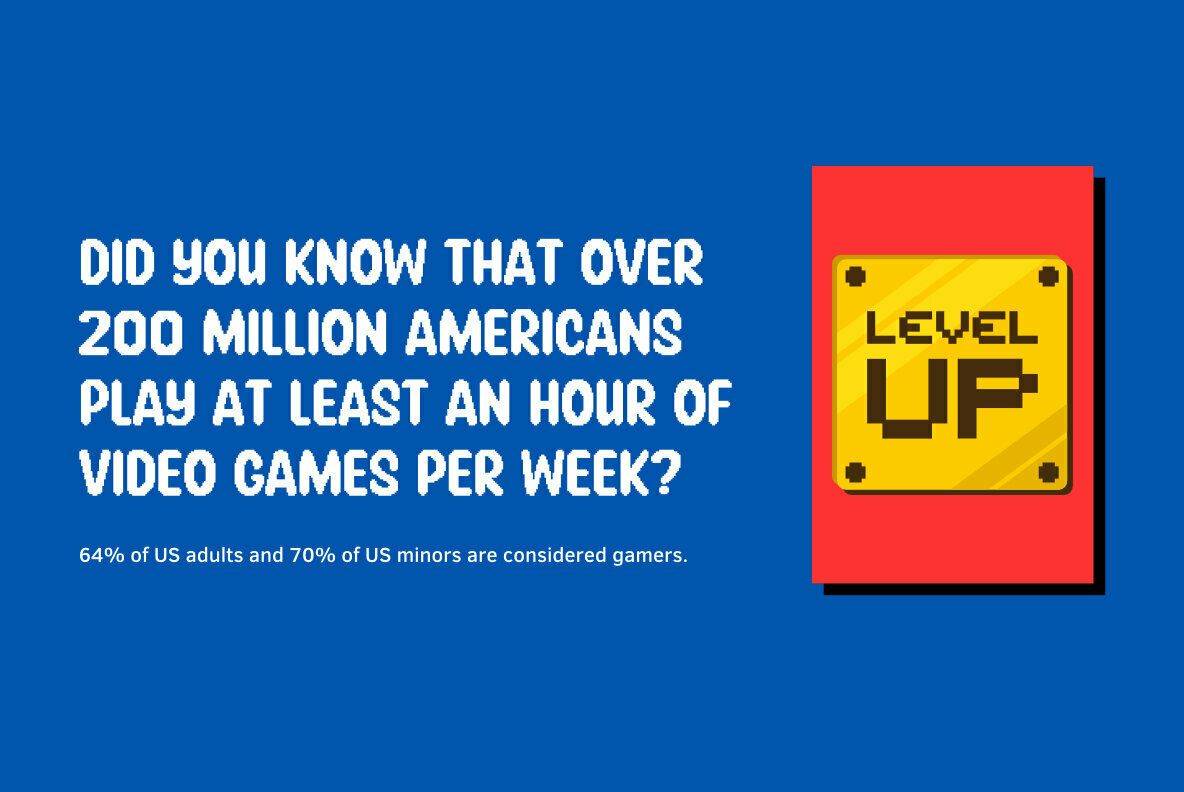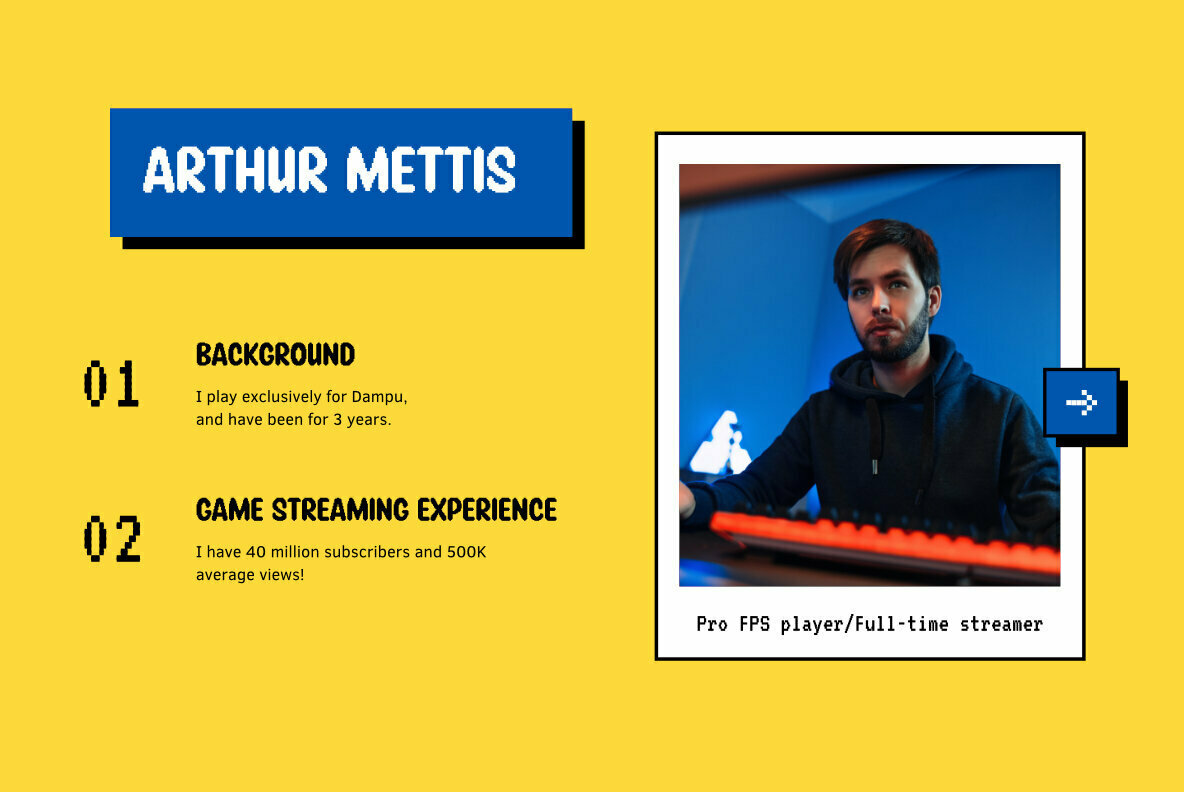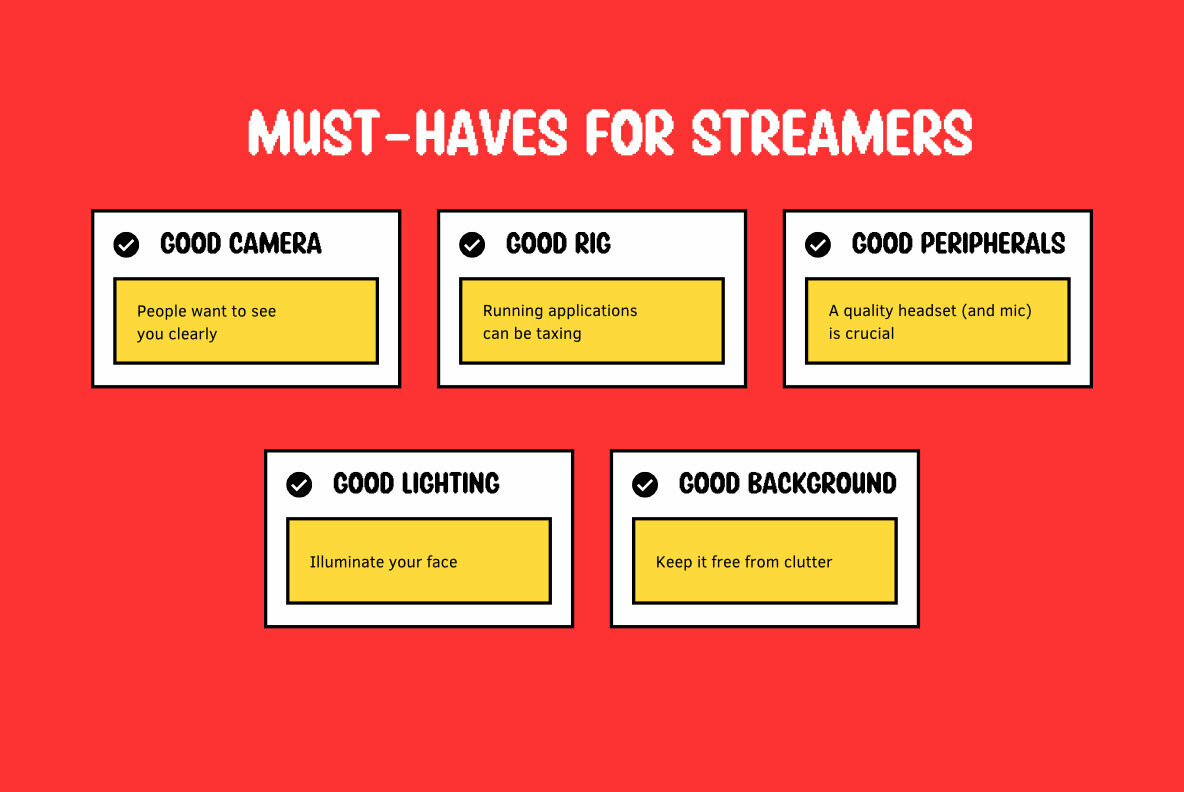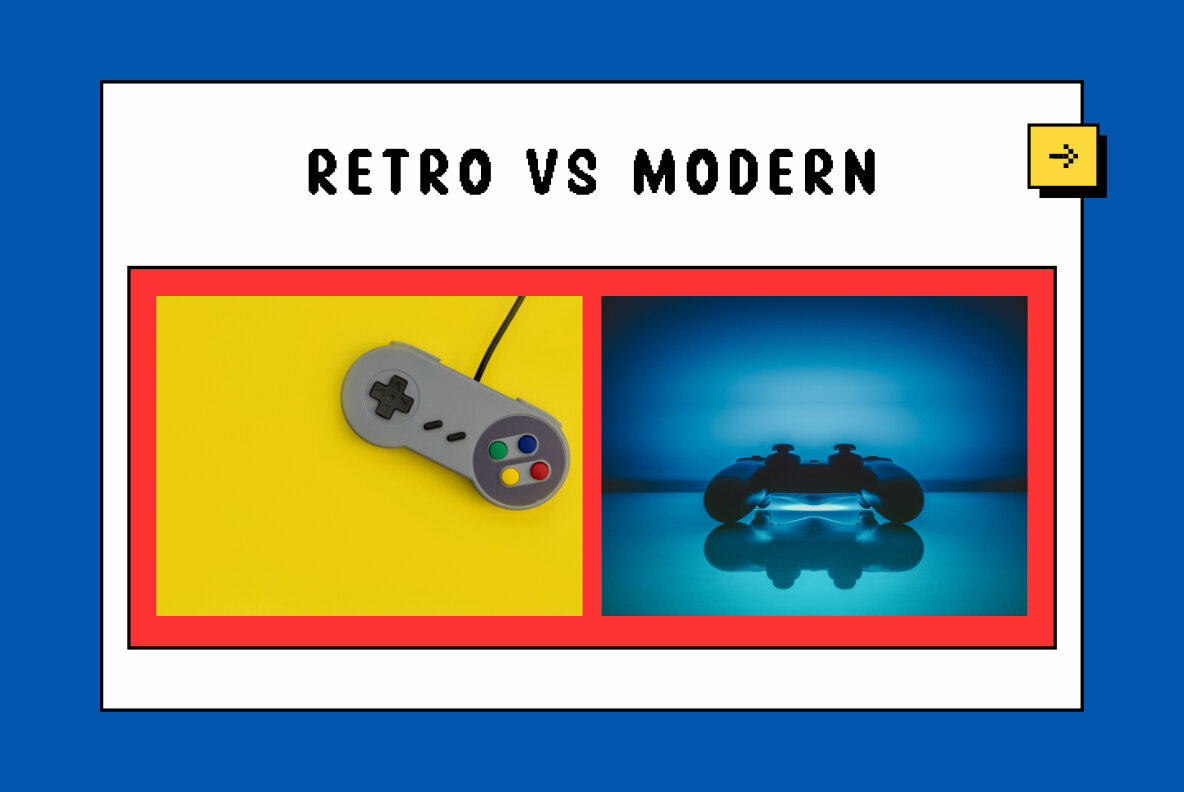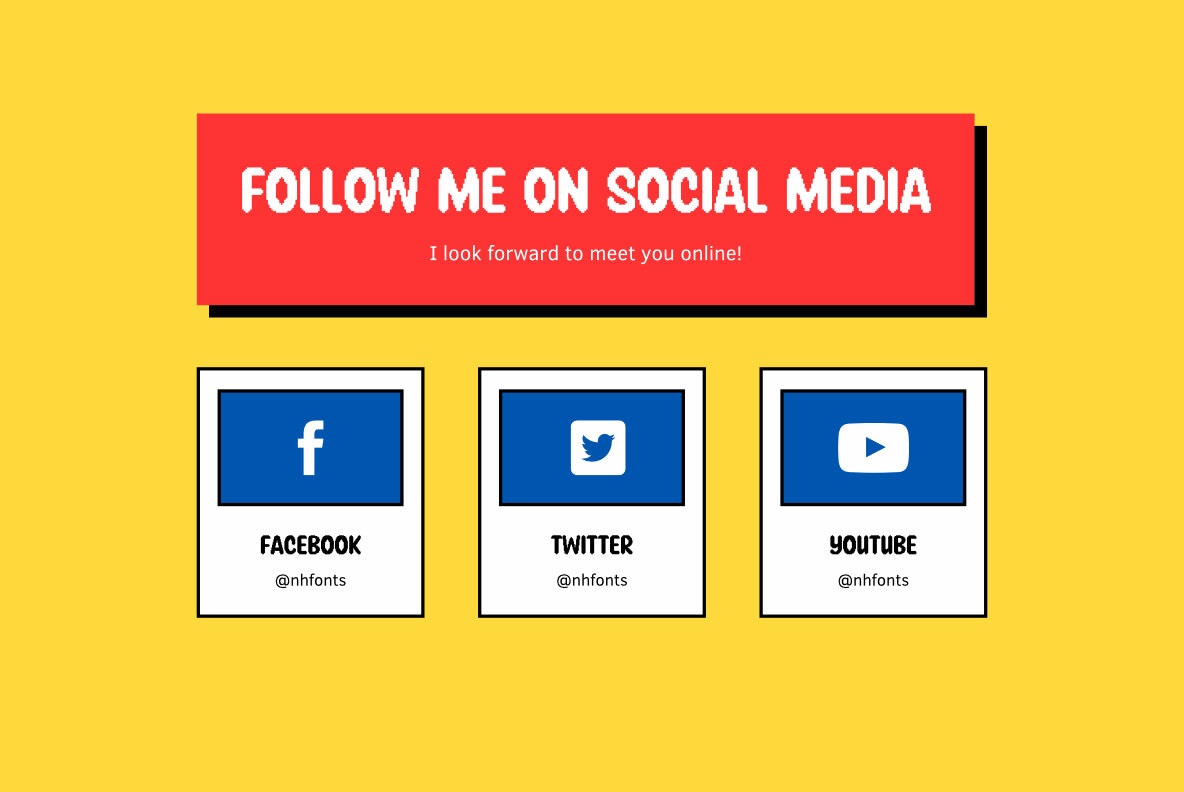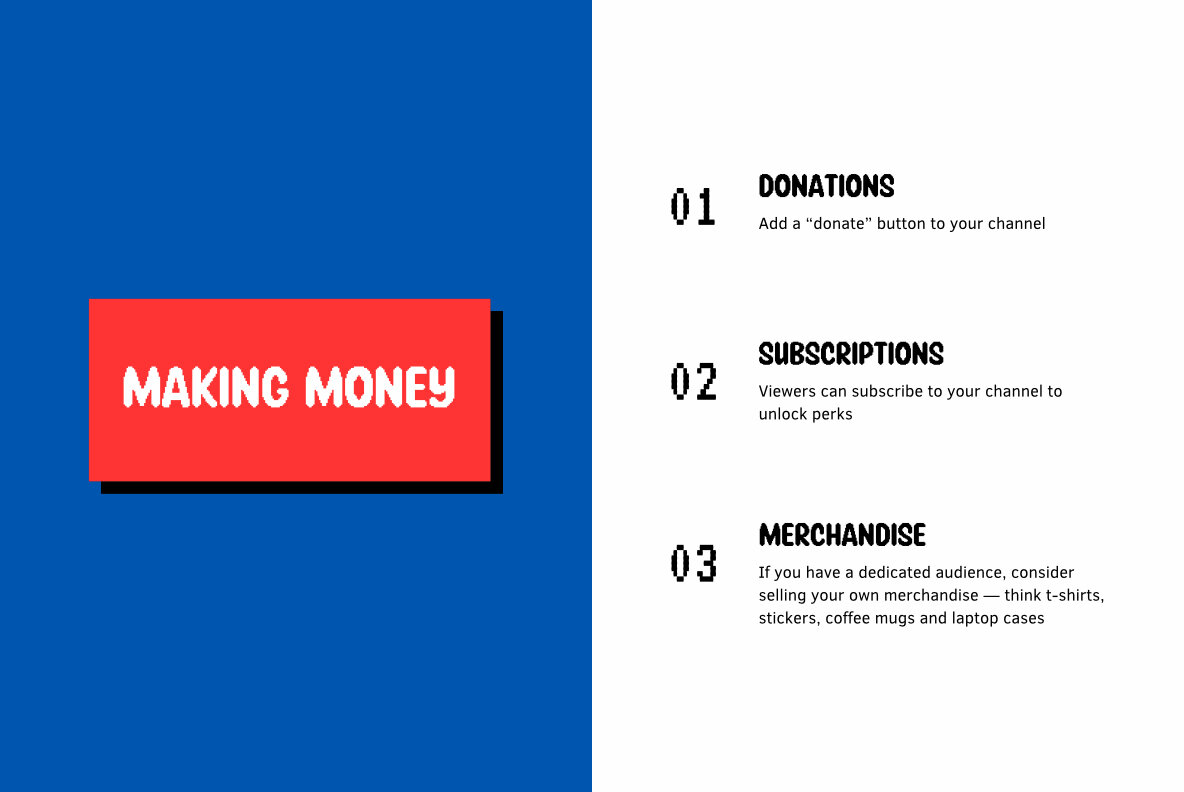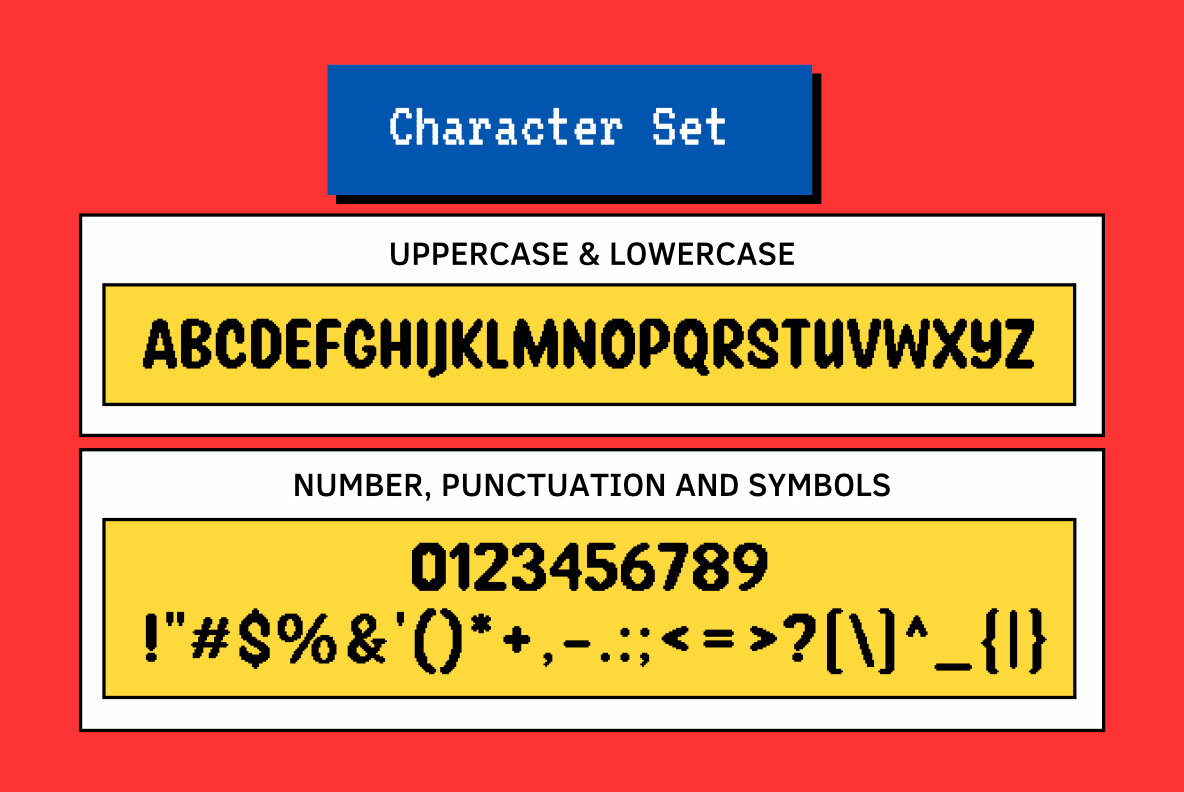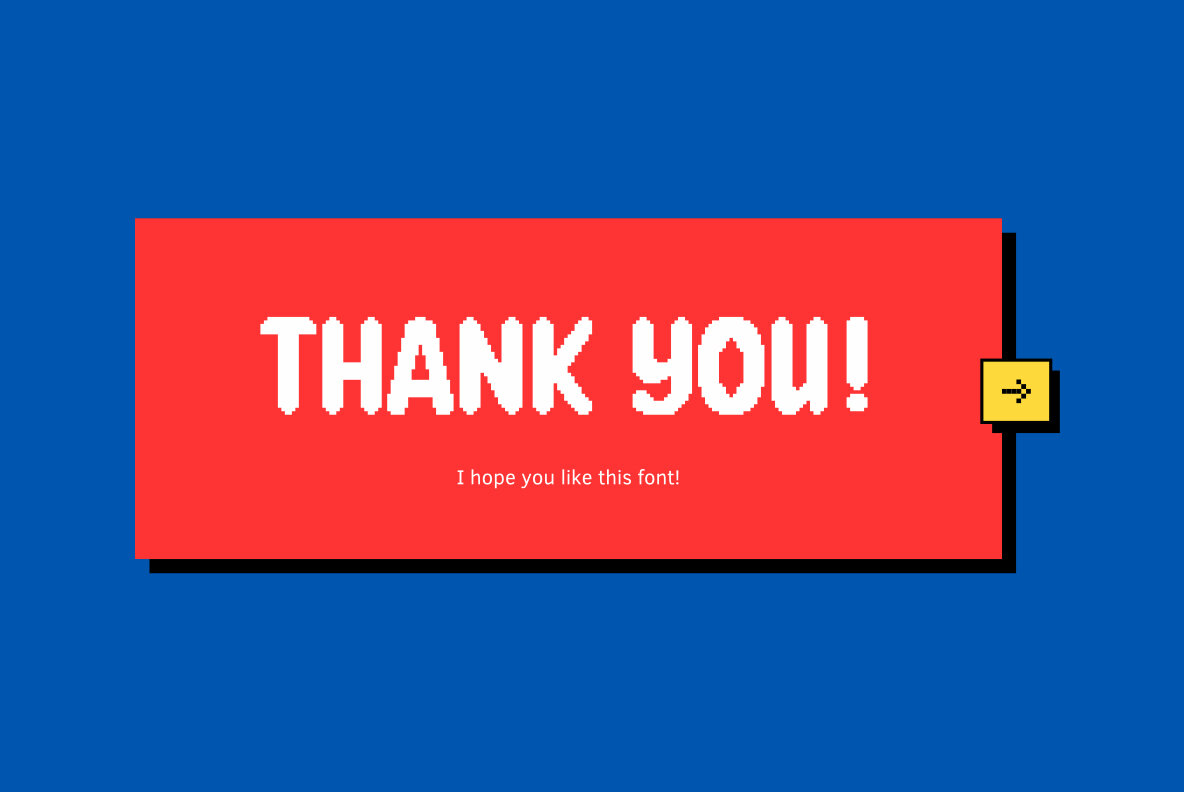
Stay Pixel Font
Stay Pixel Regular
Stay Pixel is a cool, fancy, and uniquely designed display font. It embodies playfulness and authenticity and is the perfect choice for any children activity or school project.